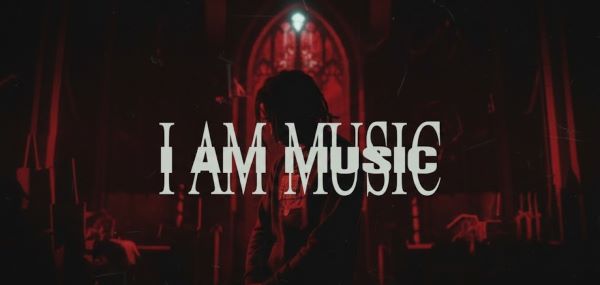
I Am Music Font
I Am Music font
I Am Music Font is a bold display typeface inspired by Playboi Carti’s influential album “MUSIC.” It captures modern hip-hop aesthetics through heavy letterforms and expressive styling, making it ideal for album artwork, posters, logos, merchandise, headlines, and designs that demand attitude, energy, and strong contemporary cultural impact.
➤ Font Name: I Am Music
➤ Designer: Yaxani
➤ Style: Display